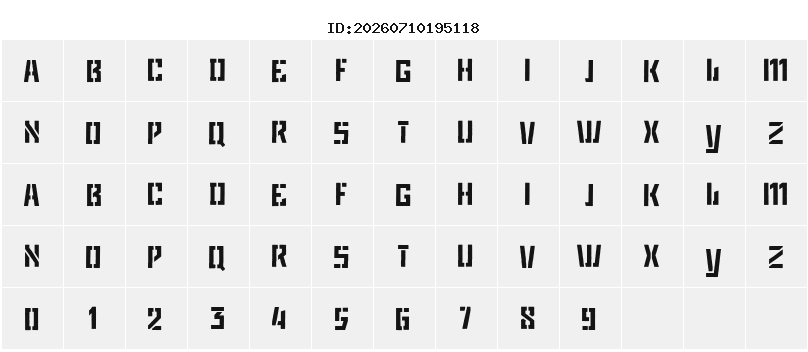
Game Plan Preview
• Font Name: Game Plan
• Font Style: game plan
• Full Font Name: Game Plan game plan
• Manufacturer: dker
About Game Plan.ttf
Game Plan.ttf is a modern, elegant sans-serif font designed for ultimate readability and visual harmony. Perfect for branding, headlines, web design, and print materials.